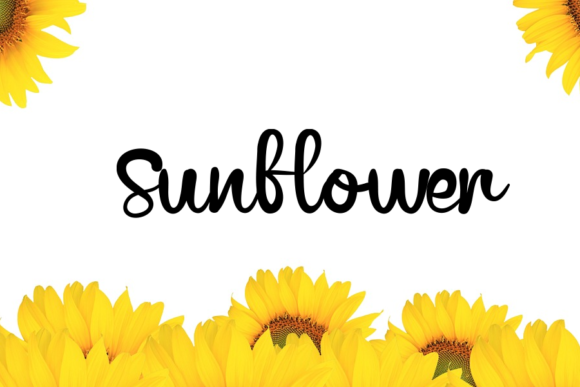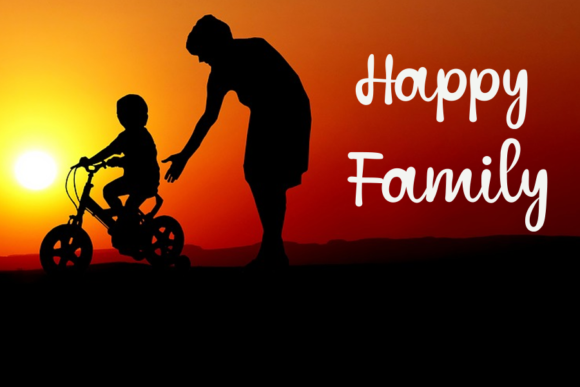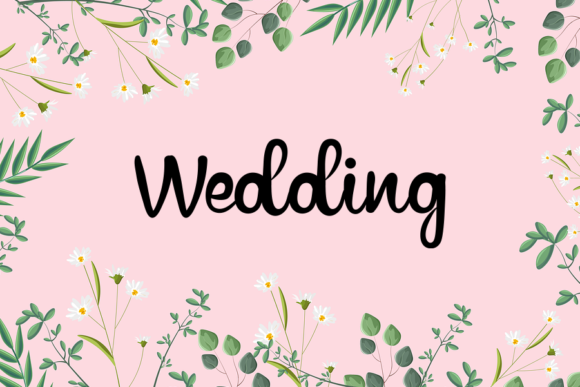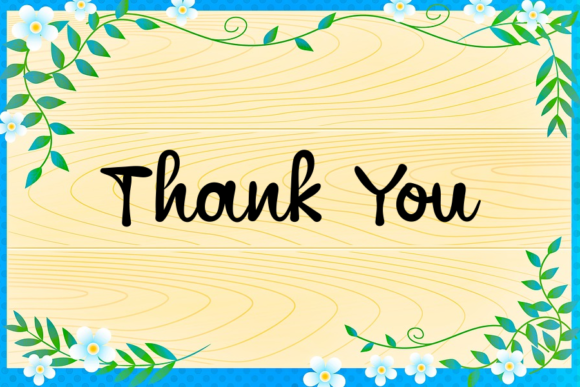
About Welcome Summer Font
Welcome Summer is a stunning and graceful handwritten font that exudes elegance and charm. With its delicate and well-balanced letters, this font is truly a masterpiece. It captures the essence of the season and welcomes the warmth and beauty of summer into your designs.
Each letter in Welcome Summer is carefully crafted to perfection, creating a harmonious and visually pleasing look. The graceful curves and precise strokes give the font a sense of sophistication and refinement. Whether you’re creating wedding invitations, branding materials, quotes, or any other design project, Welcome Summer will add a touch of class and beauty.
The versatility of Welcome Summer is one of its standout features. It can be used in a variety of design styles and themes, ranging from elegant and romantic to modern and minimalistic. It adapts effortlessly to any creative concept, allowing you to explore endless possibilities and create truly spectacular designs.
Fall in love with Welcome Summer’s versatility and let your imagination run wild. Use it to enhance your designs and evoke a sense of elegance, sophistication, and timeless beauty. Whether you’re designing for print or digital platforms, Welcome Summer will make your creations shine with its exquisite style.
Embrace the beauty and versatility of Welcome Summer and let it inspire your creative journey. Create memorable designs that leave a lasting impression and showcase the elegance and charm of this extraordinary font.